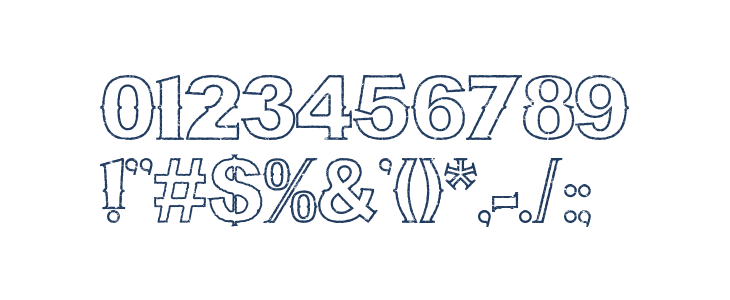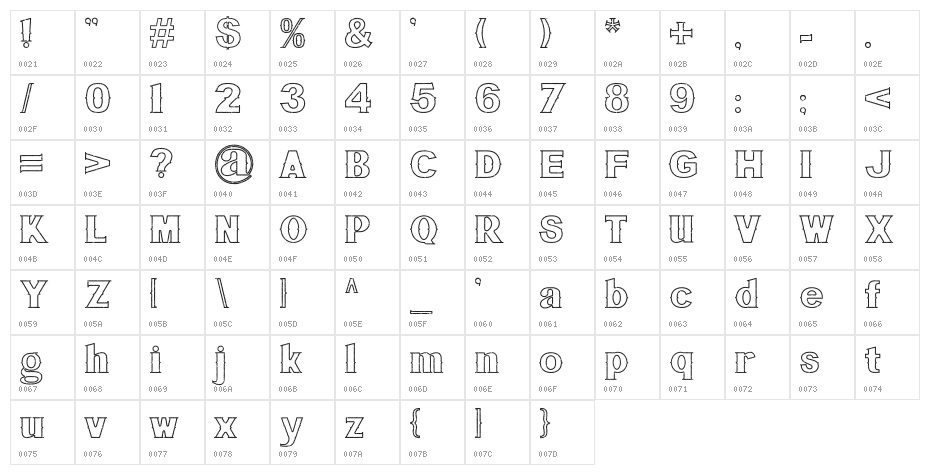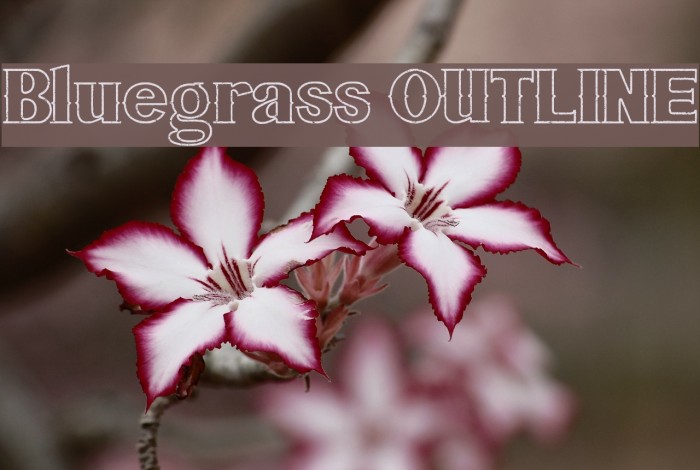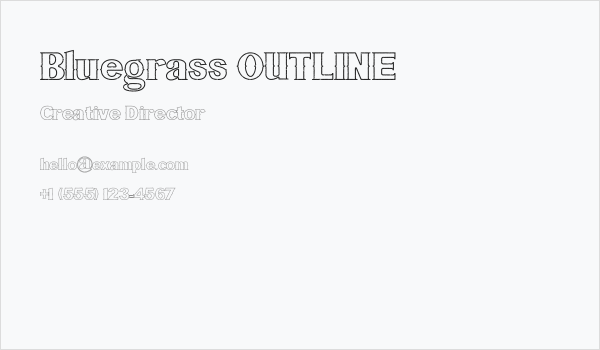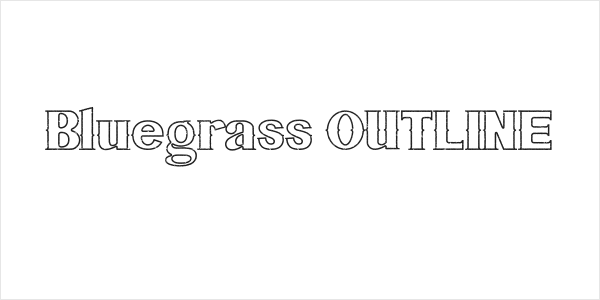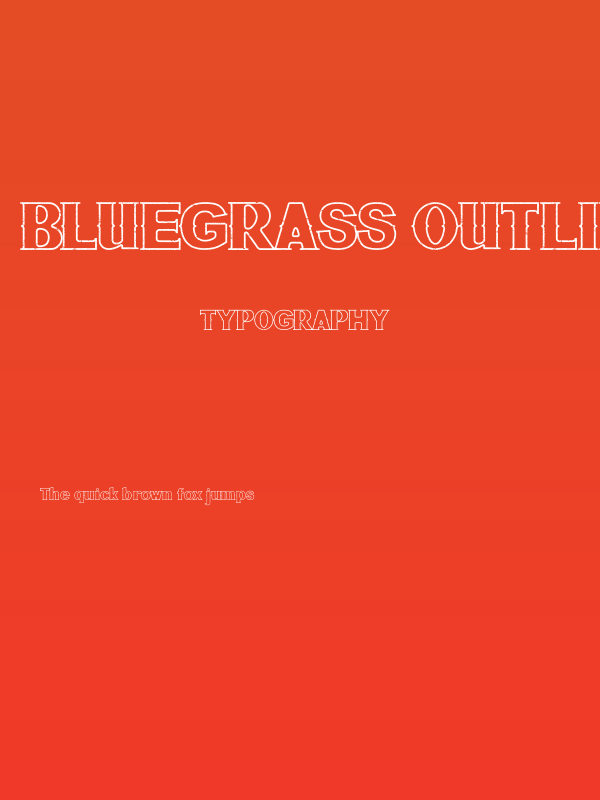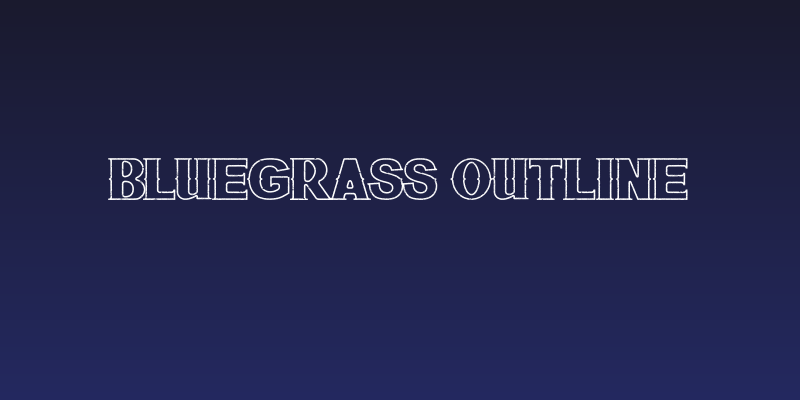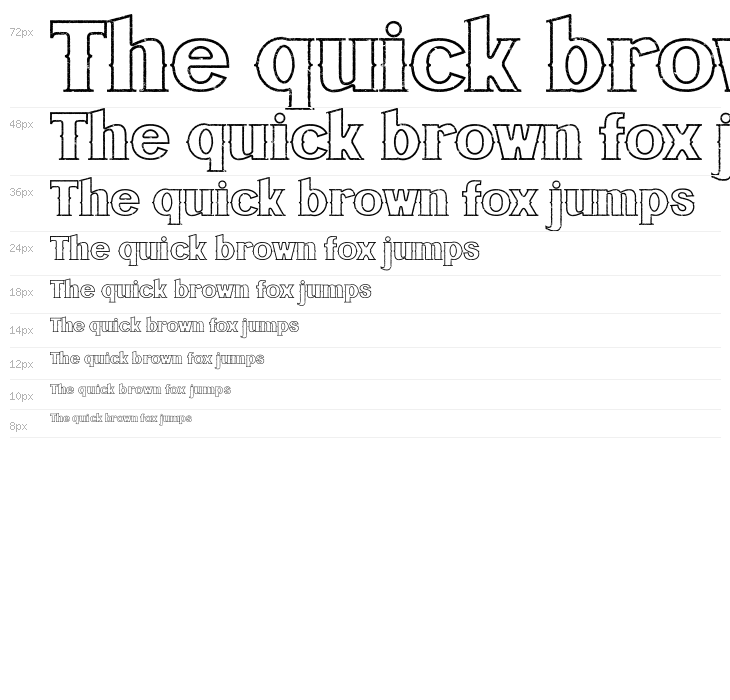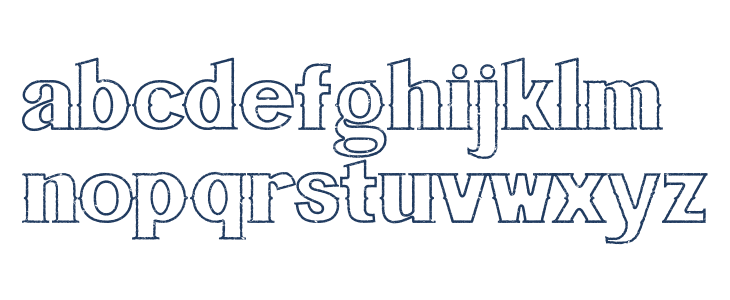
Bluegrass OUTLINE Font
Bluegrass OUTLINE Description
This font features a bold, outlined style that gives it a distinctive and eye-catching appearance. The uppercase and lowercase letters maintain a consistent outline thickness, creating a uniform look across all characters. The design is playful yet structured, making it suitable for creative projects. The numerals and special characters follow the same outlined style, ensuring cohesion throughout any text. Its bold outlines make it stand out, making it ideal for titles and headings where visibility is key. The font's unique style can add a touch of creativity and flair to any design.
| Proposed Projects | Perfect for posters, logos, headlines, and any project requiring a bold, creative touch. |